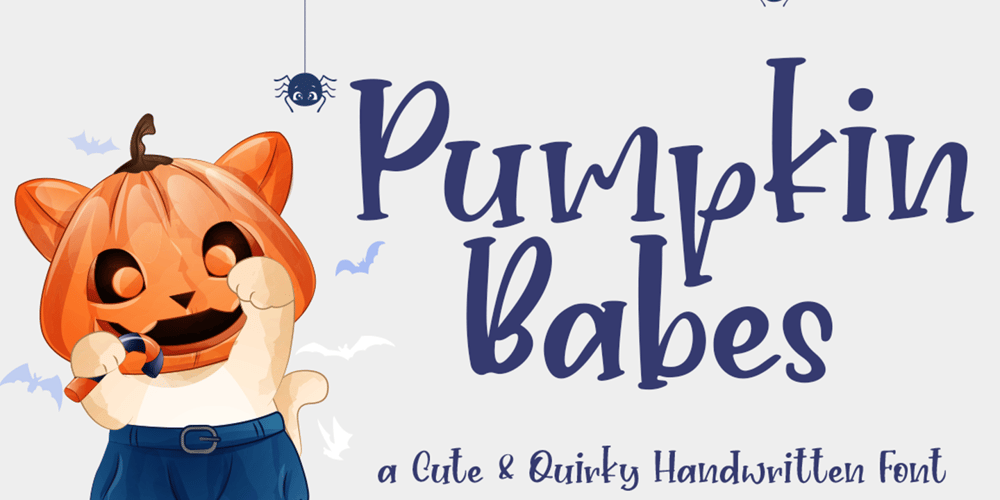
Pumpkin Babes Font Family was designed by Sarwo Edhi Prayitno and published by Haksen. Pumpkin Babes contains 1 styles and family package options. Pumpkin Babes is a funny comic handwritten style with Uppercase and Lowercase feel nice balanced. Its wide range of uppercase allow versatile design options and works perfectly for headlines, logos, posters, packaging, T-shirts and much more.Recommended to use in Adobe Illustrator or Adobe Photoshop or any software with opentype feature.Have a great day,Haksen